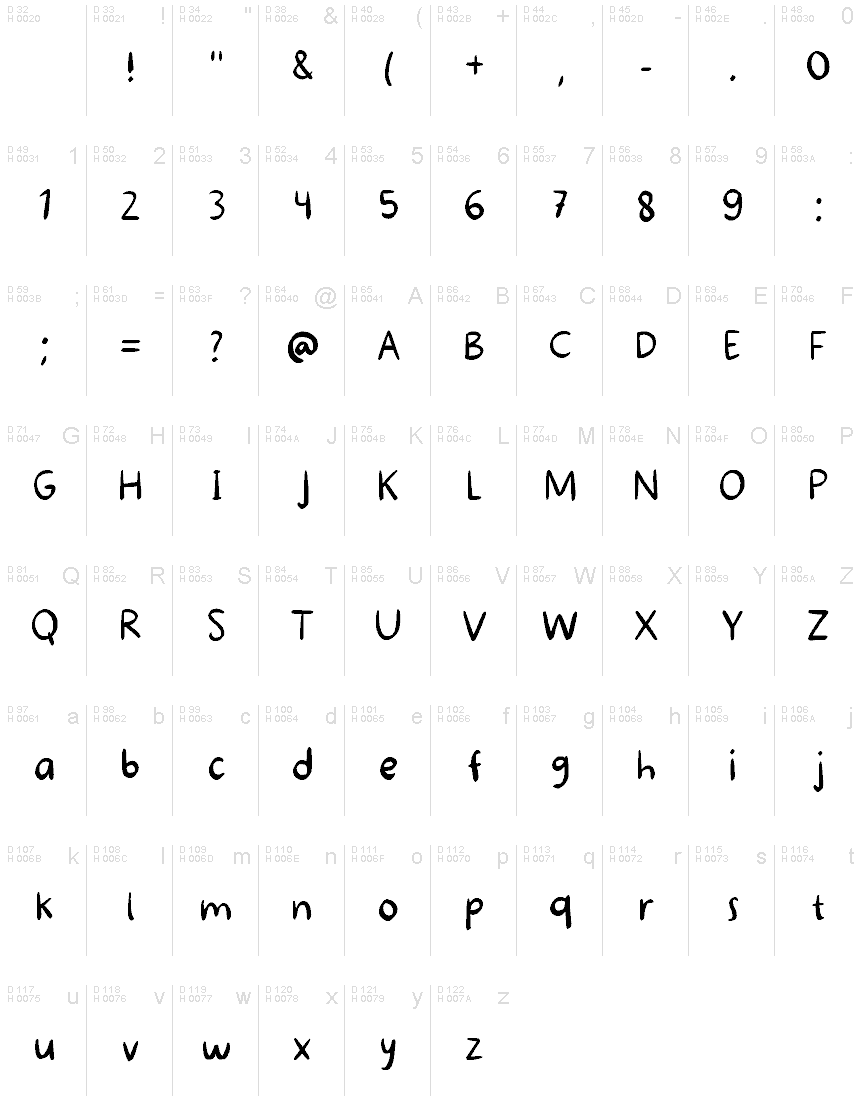
Syvdlv Pencil Regular
Syvdlv Pencil font is a handwritten free font designed by Syadila Melawardani and distributed by With You With Love. Energetic and expressive, this casual handwritten typeface can be described as gestural because it imitates a real hand’s movement on paper. It almost looks like characters were drawn with a pencil which gives the font a unique organic appearance.
Firstly, this font is ideal for branding or any other design project that needs an original logo or wordmark. Other use cases include book covers, magazines, posters, quote typography posters/printables, food packaging labels, stationery designs and more. Web use cases are websites and social media visuals/posts.